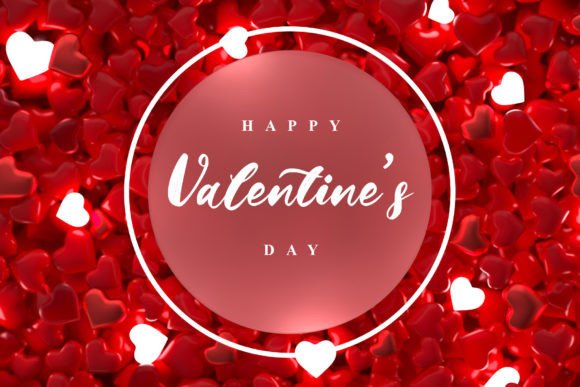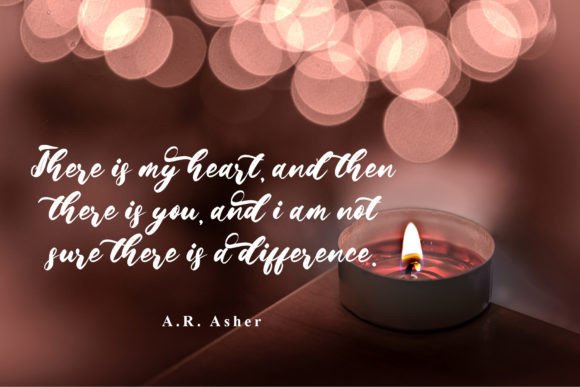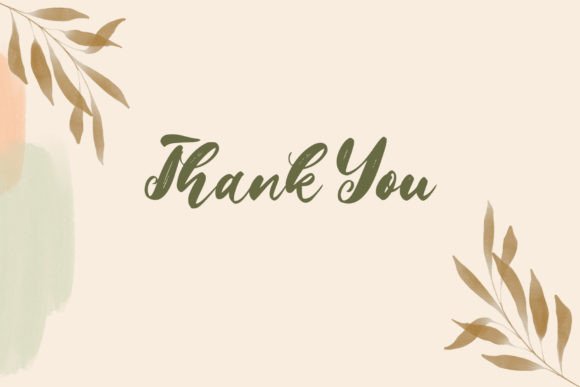
Introduction to Michellia Font
As designers, we’ve all been there – staring at a blank canvas, trying to come up with the perfect idea for our next creative project. But sometimes, all it takes is the right tool to spark inspiration. For me, that tool is the Michellia Font – a stunning, handwritten font that adds a touch of elegance to any design.
Whether you’re working on a logo, branding, or a romantic quote for Valentine’s Day, Michellia Font is the perfect choice. Its high-quality design and transparent background make it easy to use and customize, giving you the freedom to create something truly unique.
Key Features of Michellia Font
- High-quality font suitable for creative projects requiring a sophisticated look
- Transparent background and clear typography make it ideal for use on any design resource
- Includes a range of glyphs and characters, including Latin, Cyrillic, and Greek alphabets
- Michellia Font is designed to work well in both serif and sans-serif contexts
- Unique, elegant design makes it perfect for use in high-end branding, editorial, and advertising projects
Honest Review: Michellia Font
One of the things that I really like about Michellia Font is its high quality. The design is sleek and modern, making it perfect for a variety of creative projects. I particularly appreciated the fact that it comes with a transparent background, which made it easy to layer with other design elements.
- ✨ Modern design aesthetic
- ✨ High quality and crisp typography
- ✨ Transparent background for easy layering
- ⚠️ Limited font weights and styles
- ⚠️ Not suitable for large blocks of text
Overall, I was impressed with the Michellia Font and would definitely consider using it again for future design projects. It’s a great resource for designers who are looking for a modern and high-quality font that’s easy to work with.